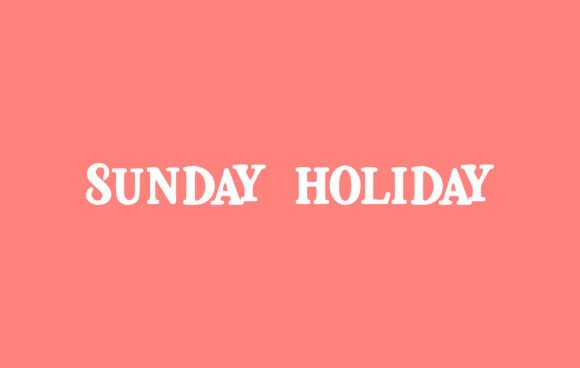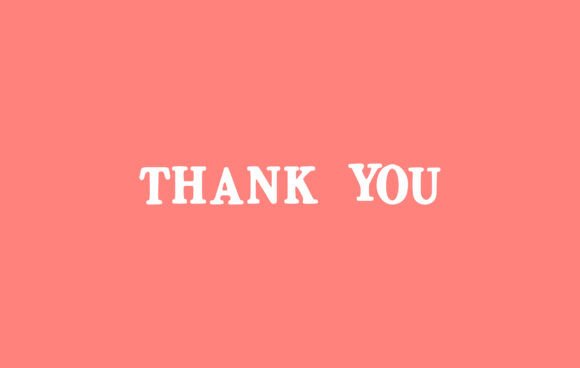
Discover the Charm of Adriana Font: Elevate Your Designs with a Romantic Touch
In the world of typography, a well-crafted font can make all the difference in bringing your creative visions to life. If you’re a designer, crafter, or simply someone who appreciates the art of beautiful writing, then you’re in for a treat. Say hello to Adriana Font, an authentic handwritten font that exudes a romantic touch and is poised to become your new favorite.
The Story Behind Adriana Font
Adriana Font is more than just a collection of letters; it’s a carefully crafted tool designed to help you express your creativity with elegance and finesse. Its design is rooted in the desire to create a font that is not only aesthetically pleasing but also highly legible, making it perfect for a wide range of applications. Whether you’re working on magazine headlines, social media graphics, branding materials, wedding invitations, or greeting cards, Adriana Font is the perfect companion to help you convey your message with style.
What Makes Adriana Font Stand Out?
• Authentic Handwritten Feel: Adriana Font boasts an authentic handwritten feel that adds a personal touch to any design. Its unique character ensures that your work stands out in a sea of generic fonts.
• Romantic Touch: The font’s romantic undertones make it ideal for designs that require a touch of elegance and sophistication. It’s perfect for wedding-related designs, Valentine’s Day cards, and any project that requires a bit of whimsy.
• High Legibility: Despite its artistic nature, Adriana Font doesn’t compromise on readability. It works beautifully both as a title font and for body text, ensuring that your message is conveyed clearly and effectively.
• Versatility: One of the key strengths of Adriana Font is its versatility. It can be used across various platforms and design projects, from digital media like social posts and blogs to print materials such as brochures, posters, and business cards.
Applications of Adriana Font
The possibilities are endless with Adriana Font. Here are some ideas to get you started:
• Magazine Headlines: Create eye-catching titles that draw readers in with Adriana Font’s unique charm.
• Social Media Graphics: Elevate your social media presence with stylish graphics that showcase your brand’s personality.
• Branding: Use Adriana Font to add a personal touch to your brand’s identity, making it more relatable and memorable.
• Wedding Invitations: Add a romantic flair to your wedding invitations, making the occasion even more special.
• Cards and Stationery: Whether it’s a Valentine’s Day card, a birthday wish, or a simple greeting, Adriana Font can help you express your feelings in a beautiful way.
Tips for Using Adriana Font Effectively
To make the most of Adriana Font, consider the following tips:
• Experiment with Sizes: Play around with different font sizes to create visual hierarchy and emphasize key points.
• Combine with Other Fonts: Adriana Font pairs well with a variety of other fonts. Try combining it with sans-serif fonts for a modern contrast or with other script fonts for a layered look.
• Adjust the Color: Choose colors that complement the tone of your design. Adriana Font works well with both bright and muted colors, depending on the effect you’re aiming for.
Adriana Font is a beautiful addition to any designer’s toolkit. Its unique blend of authenticity, romance, and legibility makes it a versatile choice for a wide range of projects. Whether you’re a professional designer or a crafting enthusiast, Adriana Font has the potential to elevate your creative ideas to new heights. So why wait? Discover the charm of Adriana Font today and bring a touch of romance and elegance to your designs.